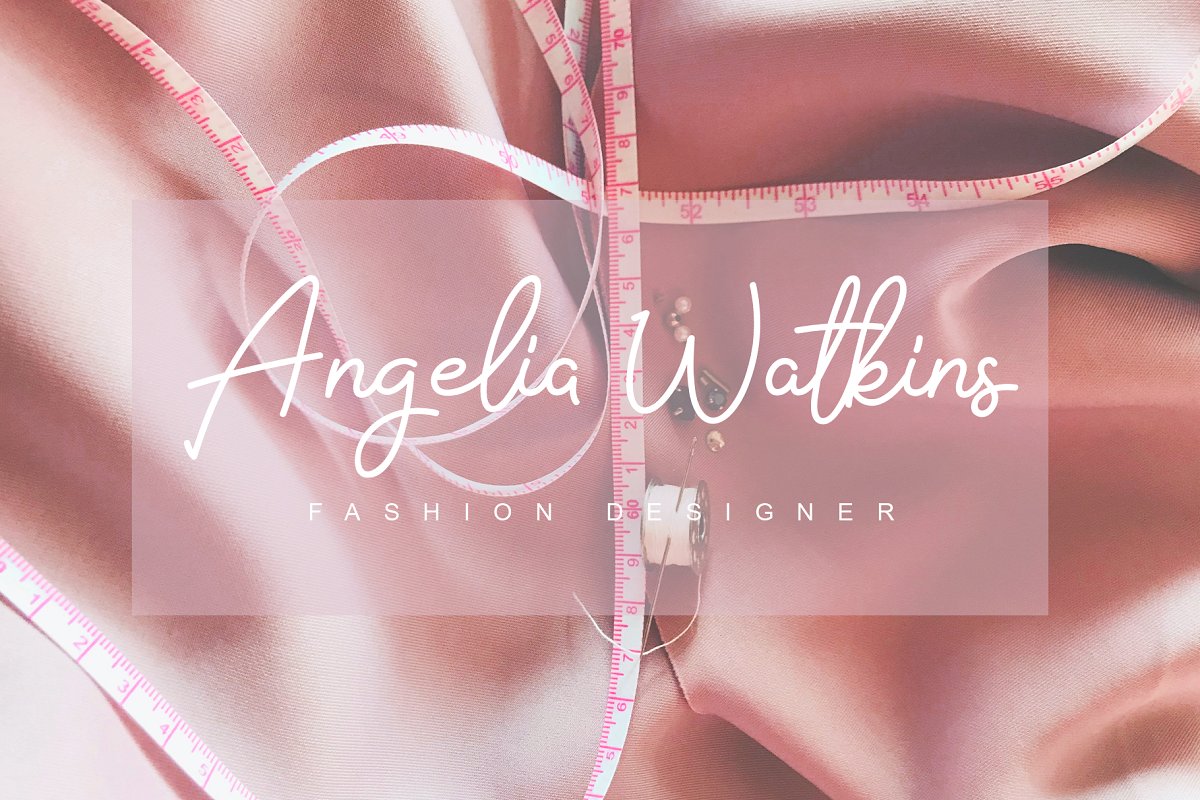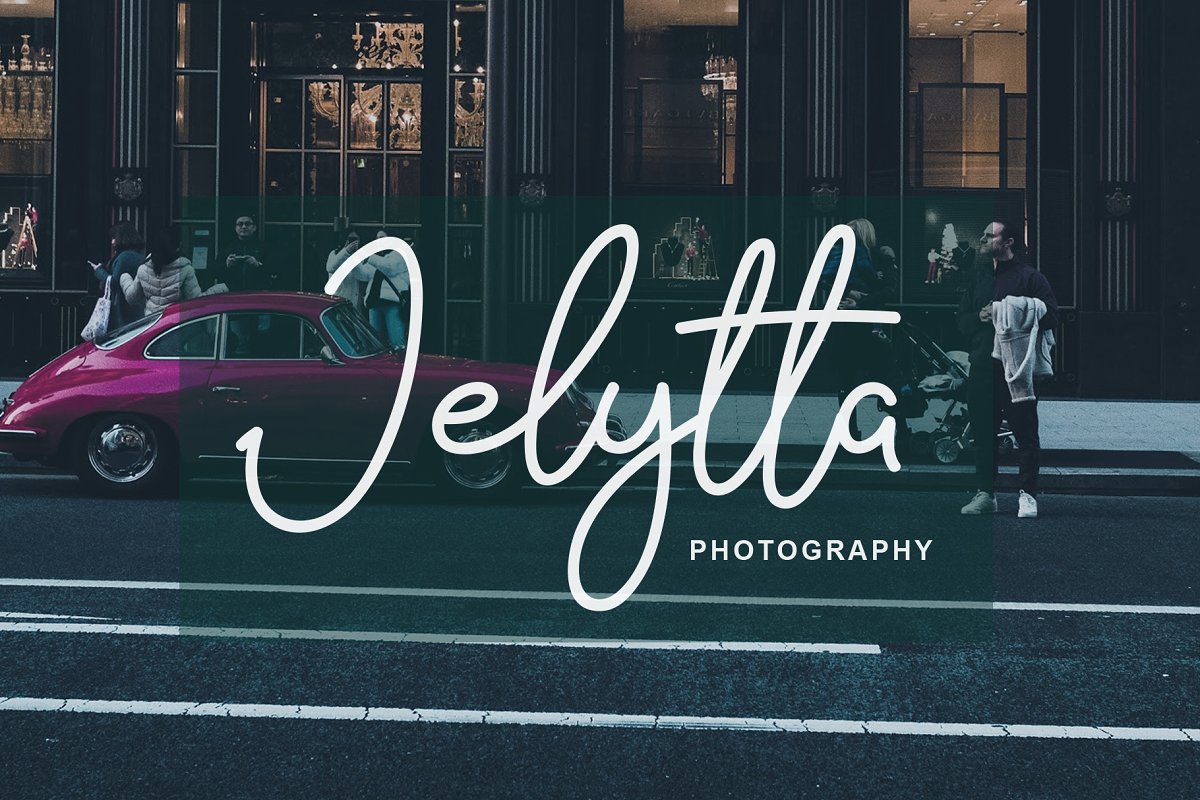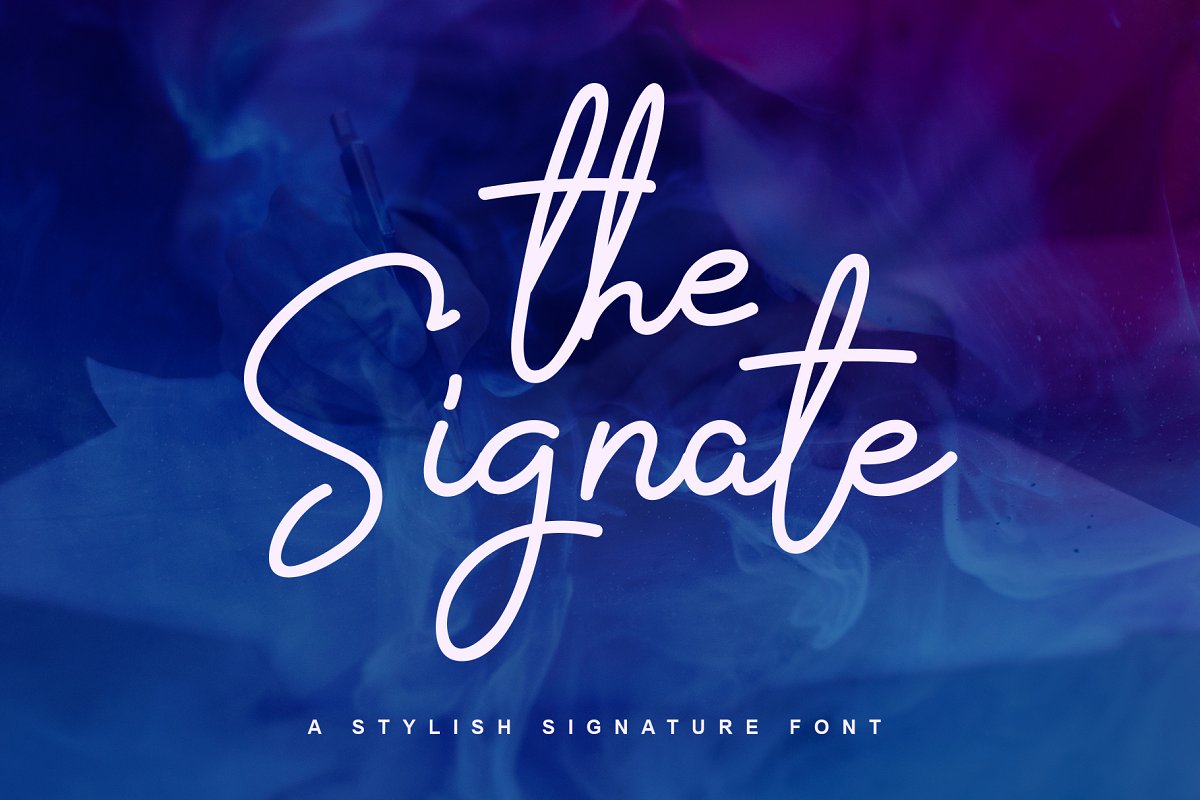
The Broadband Script Font
Hi, Please welcome our newest SVG font. The Broadband A rustic, dapper handwritten sag font with a personal charm. Quick dry strokes and a signature style, This font is perfect for branding projects, homeware designs, product packaging – or simply as a stylish text overlay to any background image.